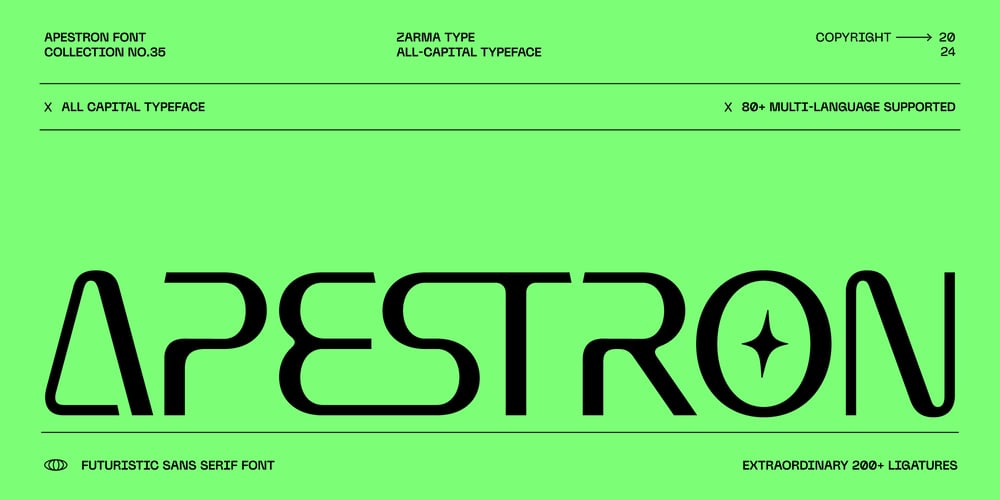
Apestron Font Family was designed by Azzam Ridhamalik and published by Azzam Ridhamalik. Apestron contains 1 styles and family package options. Futuristic Font Apestron is a futuristic sans-serif font that brings a sleek and modern aesthetic to your design projects. Professional design with clean lines and consistent stroke weights, making it suitable for various digital and print applications. Despite its futuristic design, the font maintains excellent legibility.This all-capital typeface is perfect for tech, gaming, and sci-fi themed designs. With over 200 extraordinary ligatures and alternate characters, Apestron offers endless creative possibilities. Extended Latin character set boasting over 550+ glyphs, and multilingual support for over 88 languages make it an ideal choice for a variety of applications. Whether you’re working on futuristic, minimalist, or technology themed design projects, Grotesk Font Nebulica is perfect for layout design, web design, and interface design, delivering a sleek and sophisticated look that captures the essence of modernity.